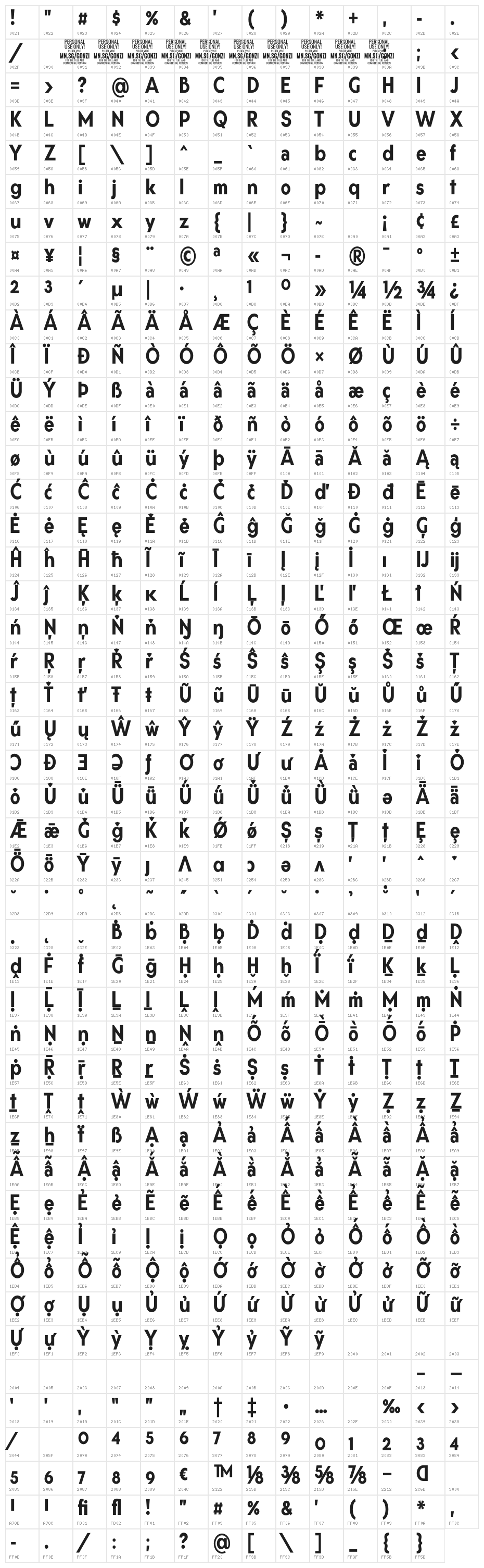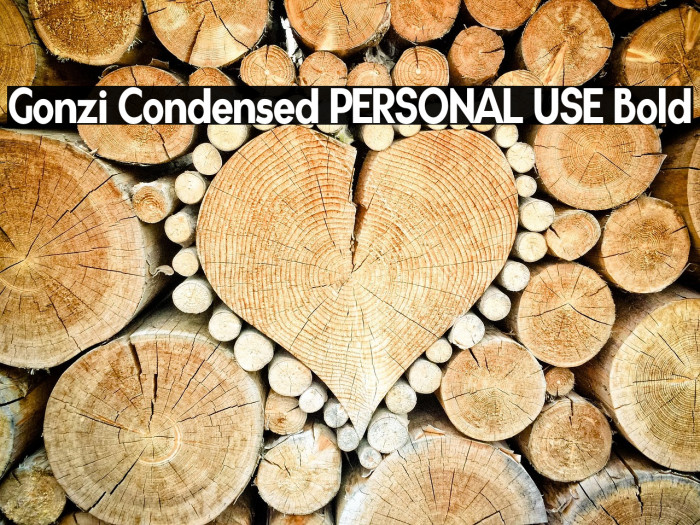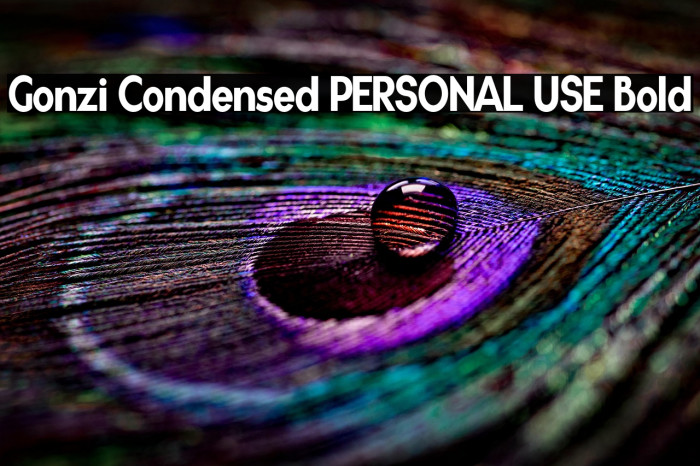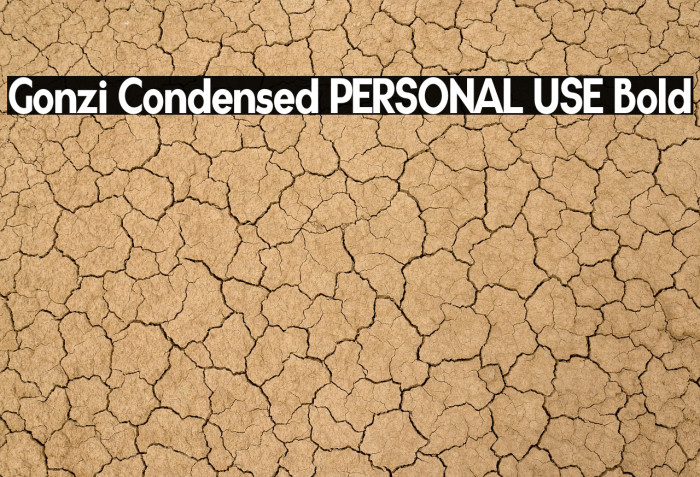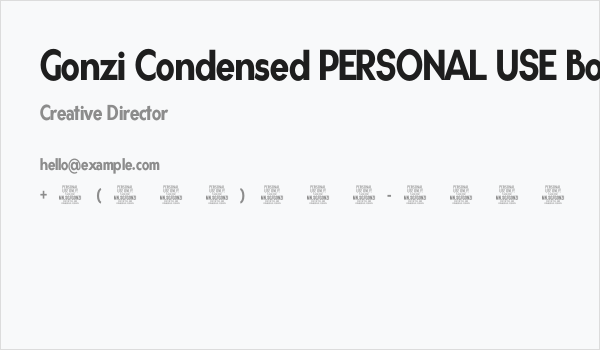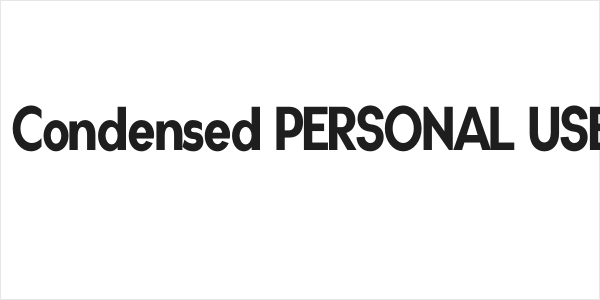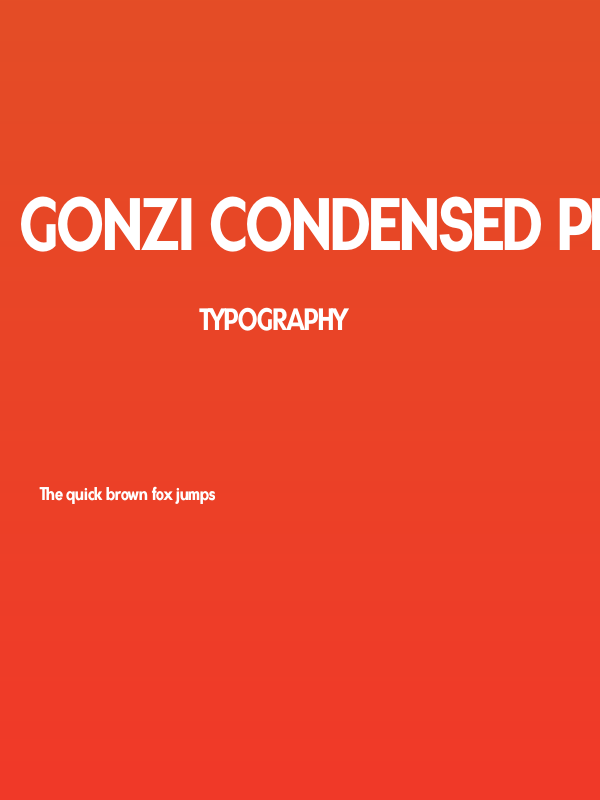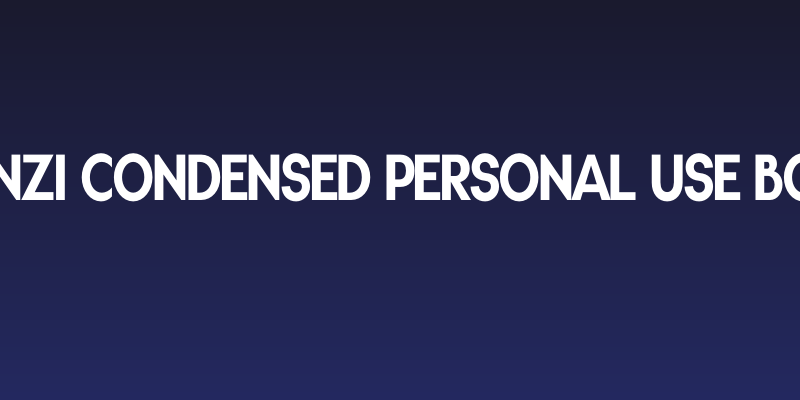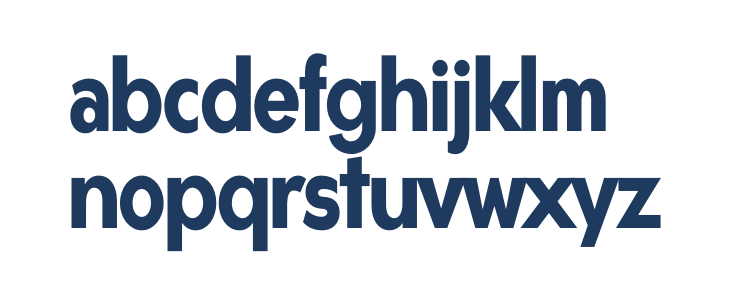
Gonzi Condensed PERSONAL USE Bold Font
Gonzi Condensed PERSONAL USE Bold Description
This font features a bold and condensed style, offering a strong and impactful appearance. The uppercase and lowercase letters are designed with uniform stroke widths, creating a cohesive and modern look. The characters are tightly spaced, enhancing the condensed nature of the font. The numerals and special characters maintain the same boldness, ensuring consistency across all elements. Its clean lines and lack of serifs contribute to a contemporary aesthetic, making it suitable for various design applications where a bold statement is needed.
Proposed ProjectsIdeal for headlines, posters, branding, and advertising where a strong visual impact is desired.